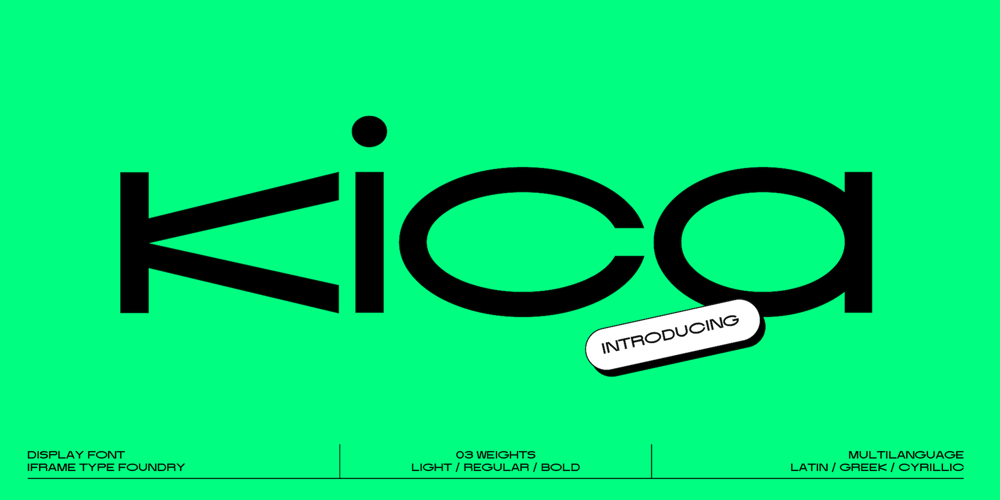
Kica
Kica font
Kica Font Family was designed by Georgios Chalkidis and published by iframe. Kica contains 2 styles and family package options. 3 weights (Light, Regular, Bold) 613 glyphs Character set A-Z Uppercase & Lowercase Numerals & Punctuation Multilingual Language support: Latin, Greek, Cyrillic Works on PC & Mac Kica is a modern display typeface that is characterized by its clean lines, bold strokes, and geometric shapes. This typeface was designed with the intention of creating a strong visual impact and capturing attention.